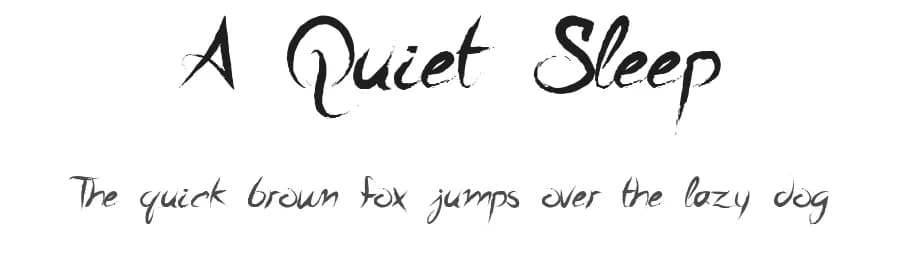
About A Quiet Sleep Font
| Designer | John Gauthier |
A Quiet Sleep Font is a script font that shines as a display or heading face. Pair it with a clean sans-serif or serif font for body text β the contrast creates a clear hierarchy while the two styles stay balanced and easy to read.
A Quiet Sleep Font